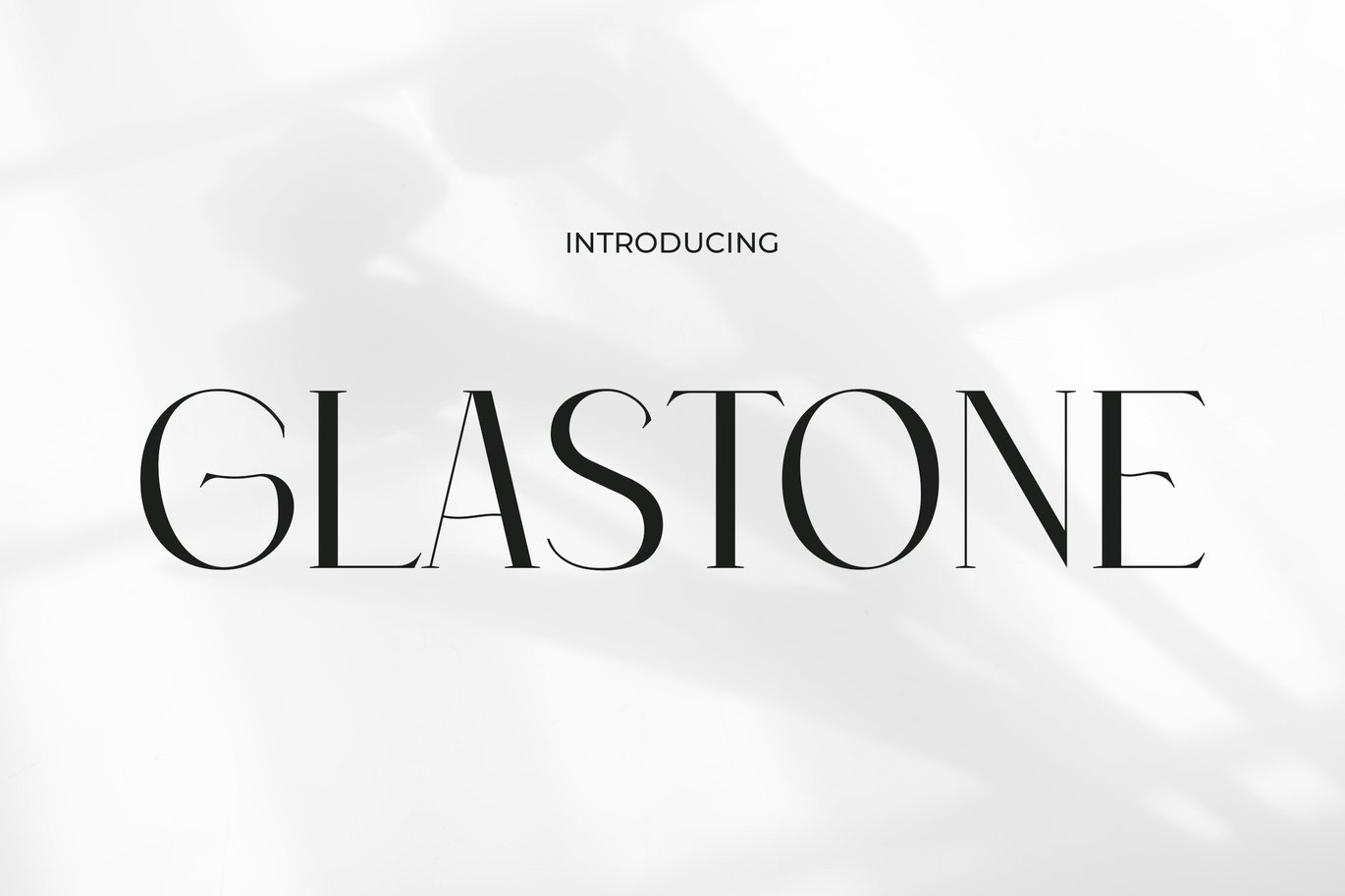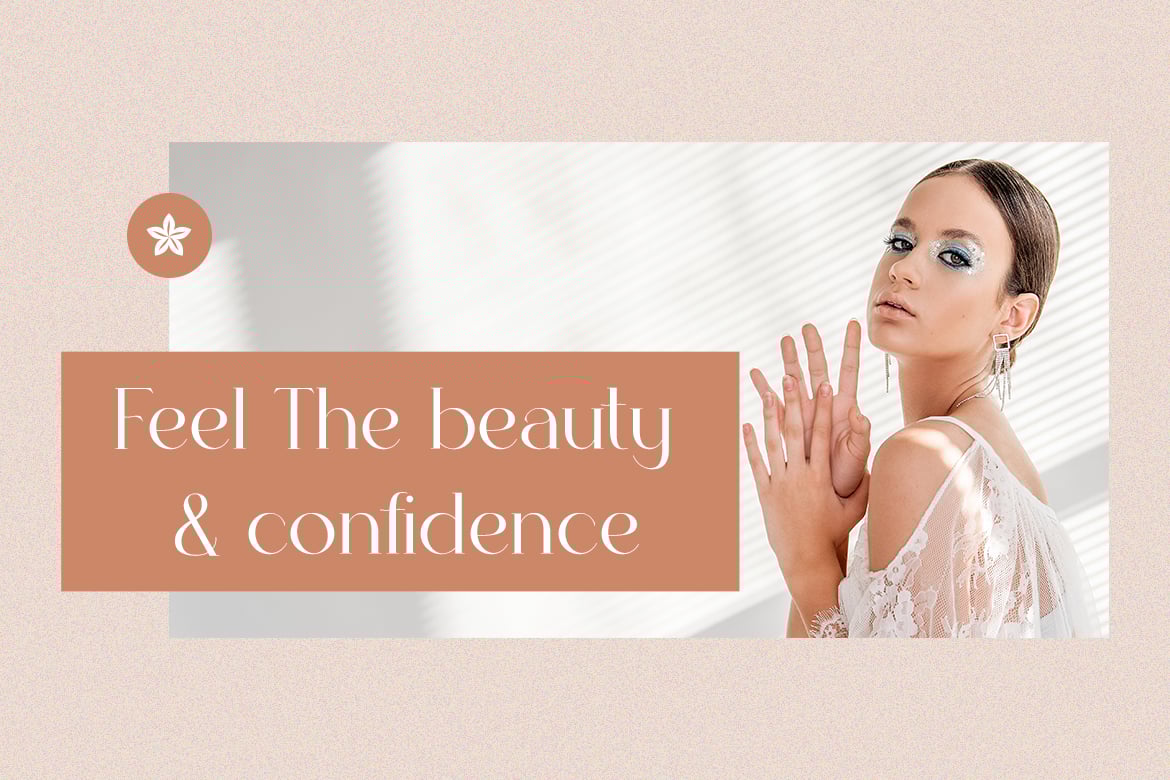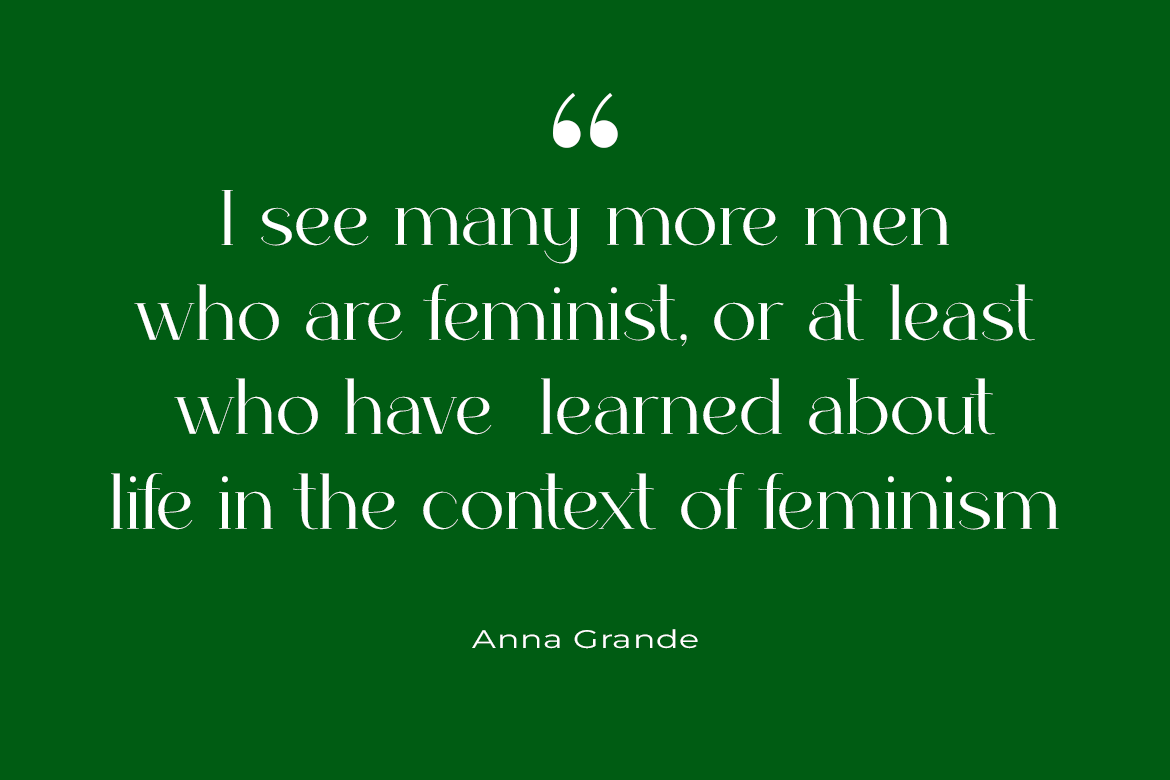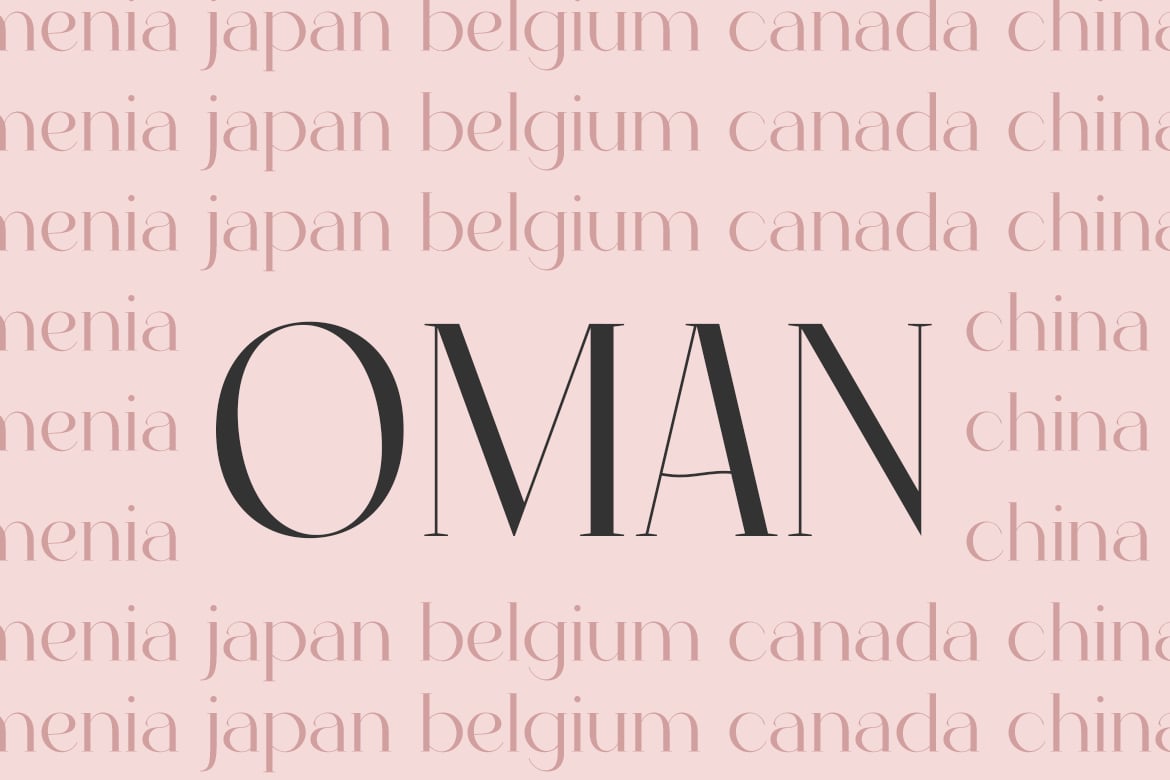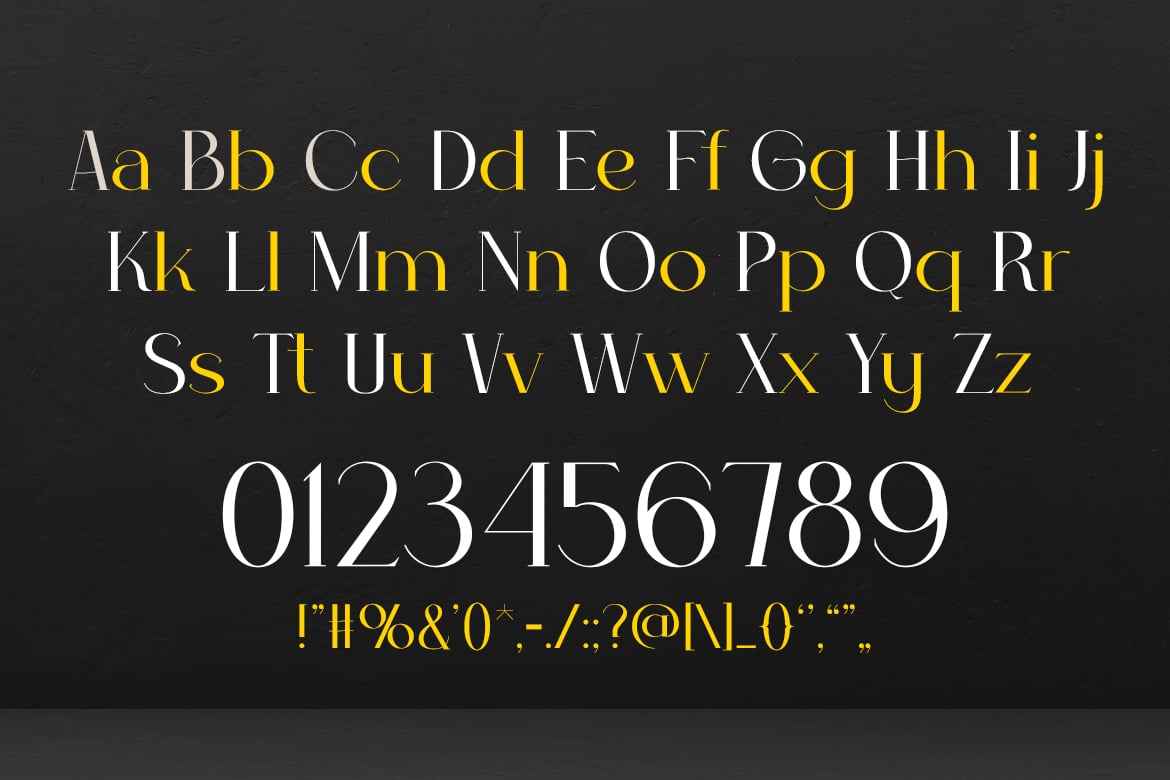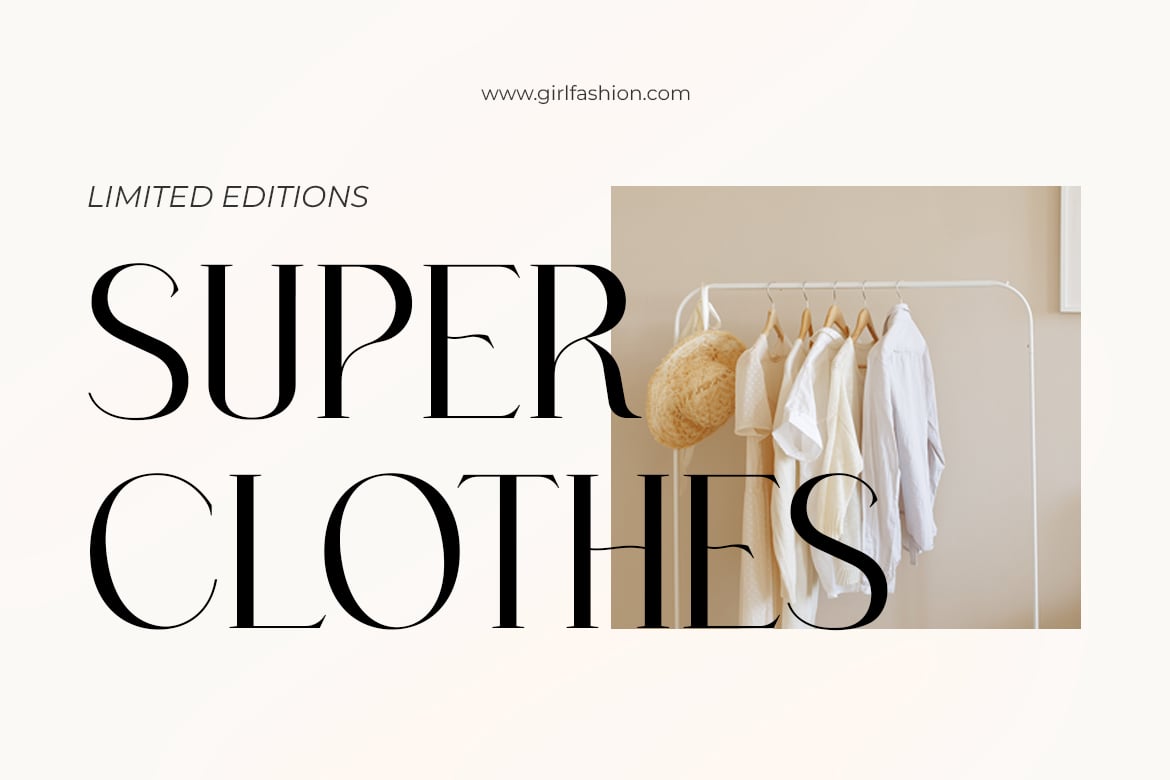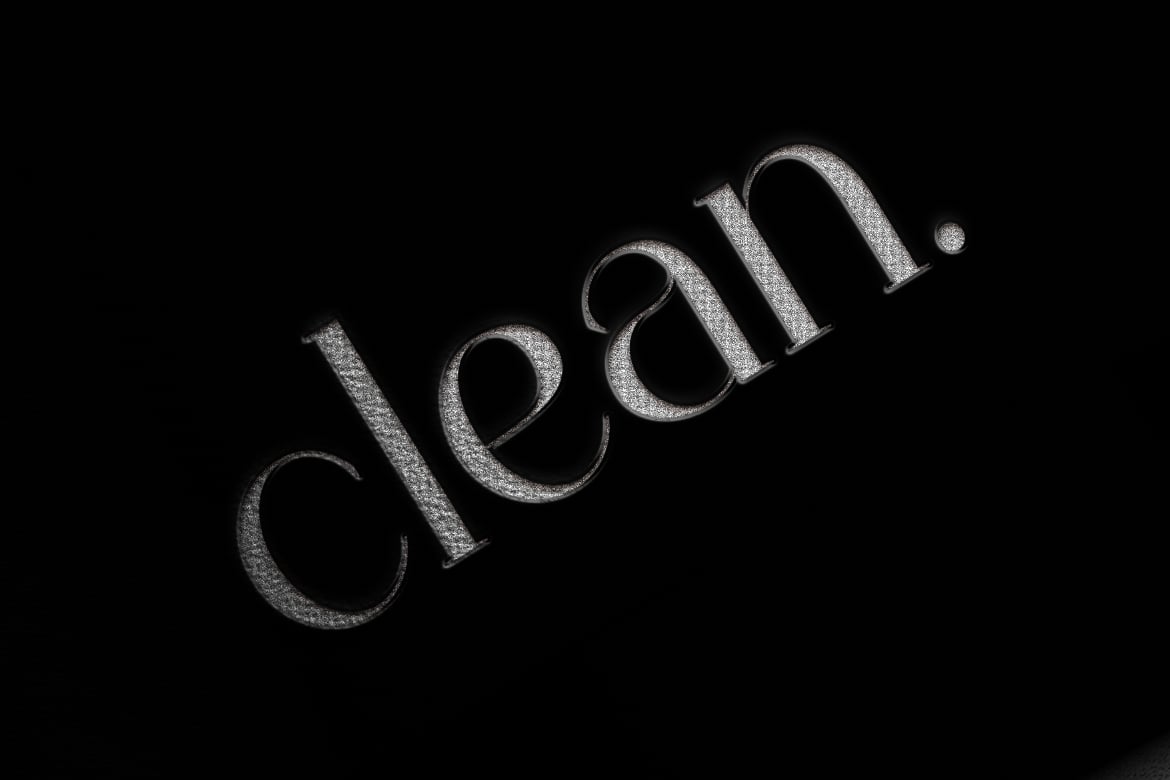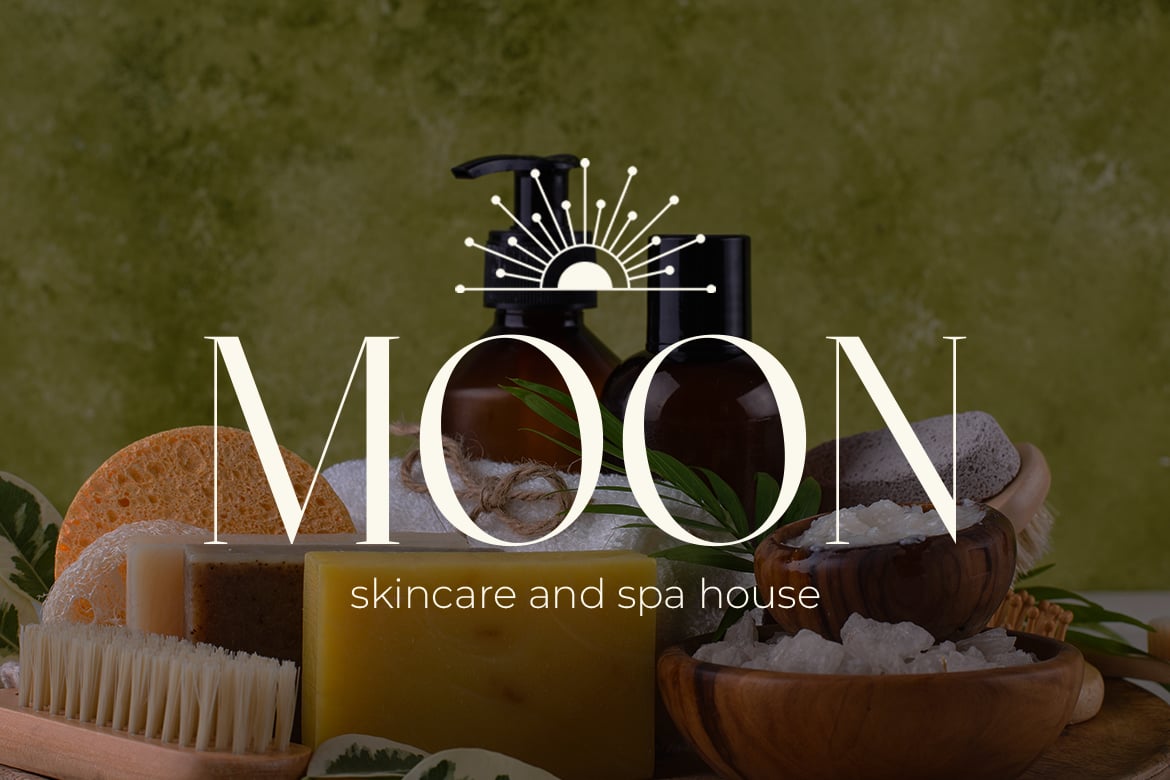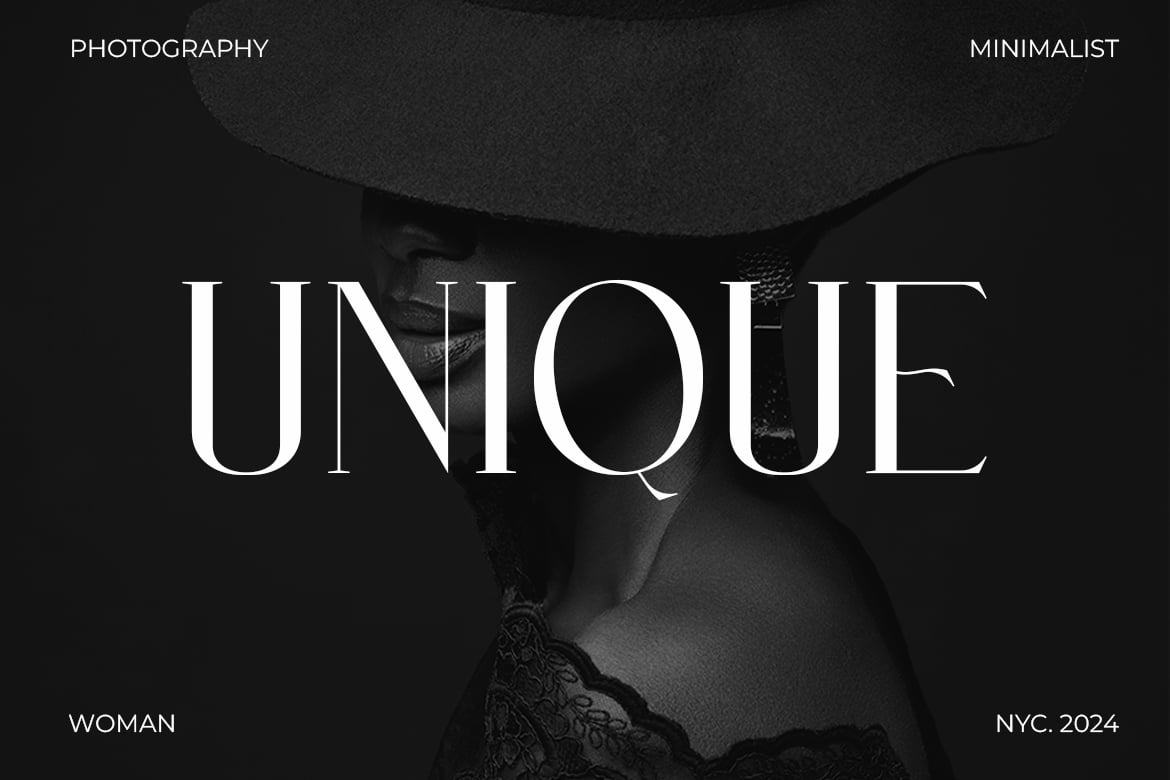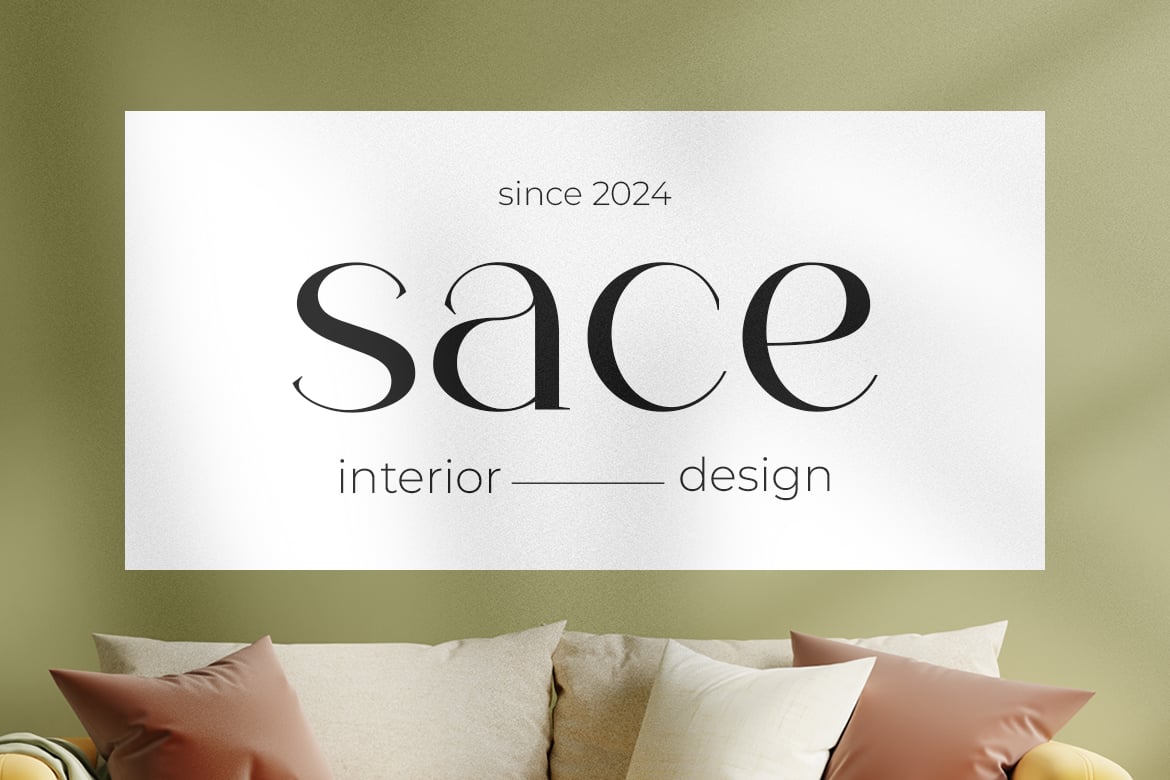
Glaston – Modern Elegance and Beauty Font
Glaston is a modern font that exudes elegance and beauty and is designed to bring a sleek and sophisticated touch to any project. It stands at the intersection of contemporary design and artistic aesthetics, making it a perfect choice for various creative endeavors. Glaston offers a refined and upscale look for logos, setting brands apart with its elegant styling. This font shines in crafting quotes, adding a touch of sophistication and grace, making each word resonate with beauty. Glaston sets a tone of modern elegance in invitations, perfect for exclusive events and memorable gatherings. Its use in posters and greetings brings a sense of upscale charm, communicating messages with both style and clarity.
Glaston provides a distinct and classy identity in the realm of packaging and branding, ideal for products that aim to convey luxury and refinement. For book covers, event promotions, headlines, and advertising, Glaston ensures that your message captures attention and leaves a lasting impression of modern sophistication and artistic beauty.